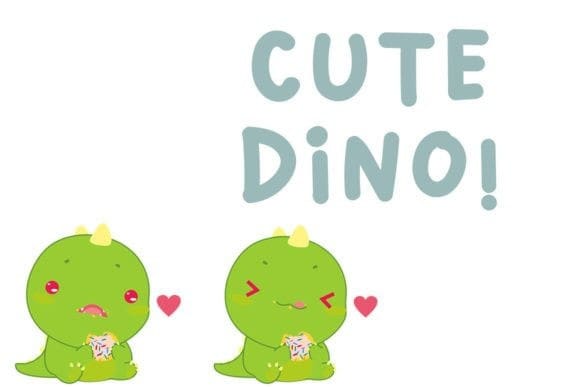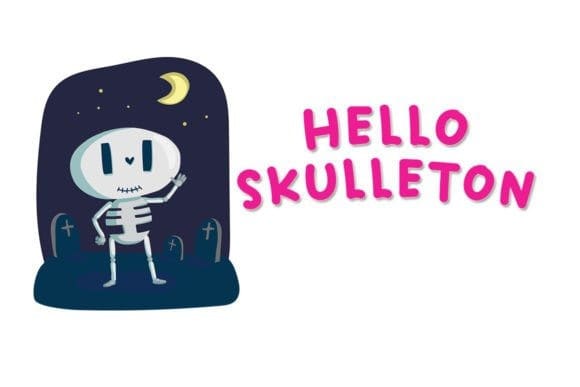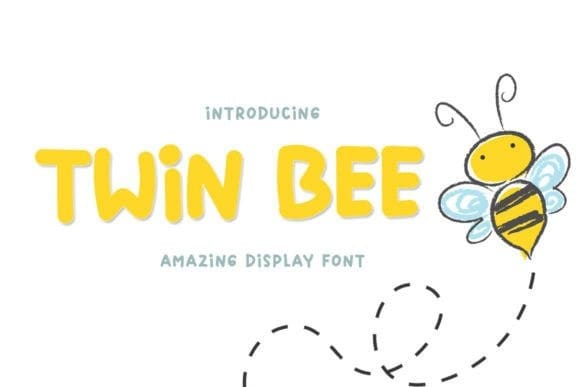
Twin Bee Font
Twin Bee Font is a beautiful and sweet display font. Fresh, clean, and elegant, it will look amazing on a great number of projects, both formal and informal. It will add an incredibly joyful touch to your designs. By using this font, your business will look more beautiful.